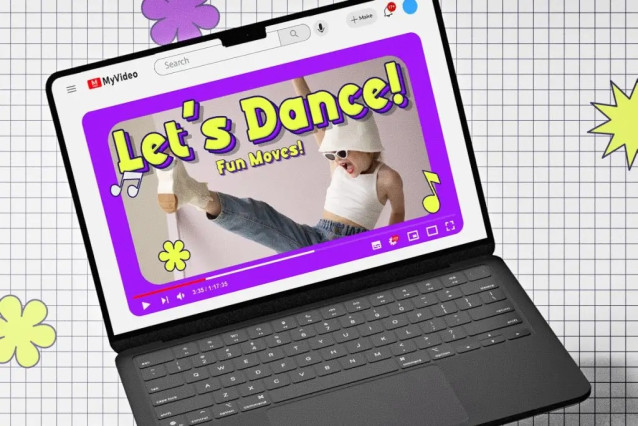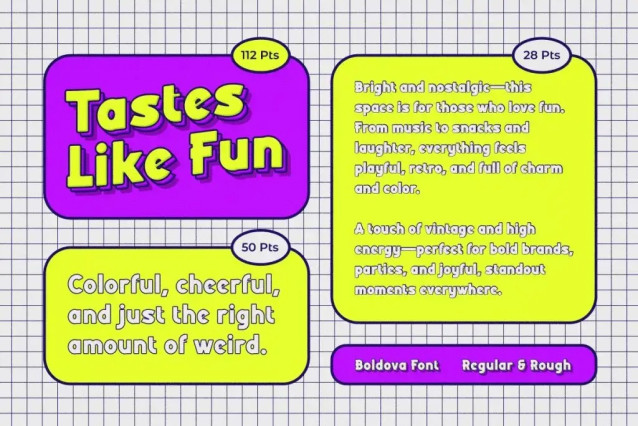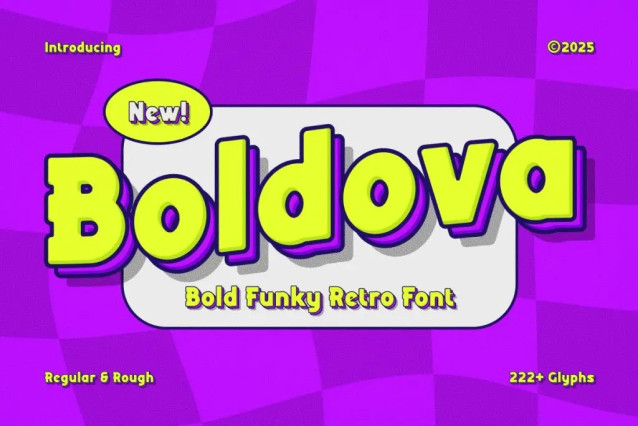
Boldova Font
Boldova Font is a bold, funky retro font that takes you back to the vibrant days of the 70s-90s. Designed to capture the essence of that era, it’s perfect for creating designs that demand attention. With bold letterforms and exaggerated curves, it instantly gives off a funky and groovy vibe.
Moreover, Boldova is designed to combine retro style with modern flexibility, making it suitable for a variety of design needs. Whether you’re working on a vintage logo, a social media post, or a poster, this font brings the perfect blend of personality and sophistication to any creative endeavor.